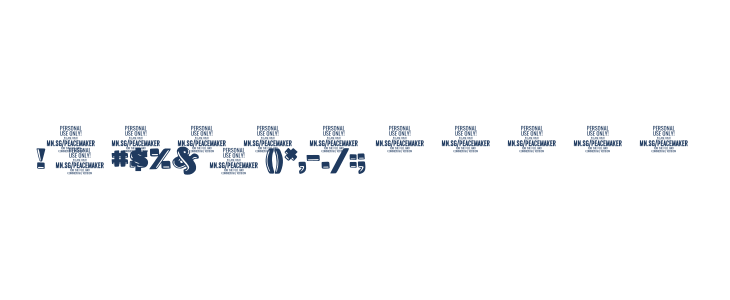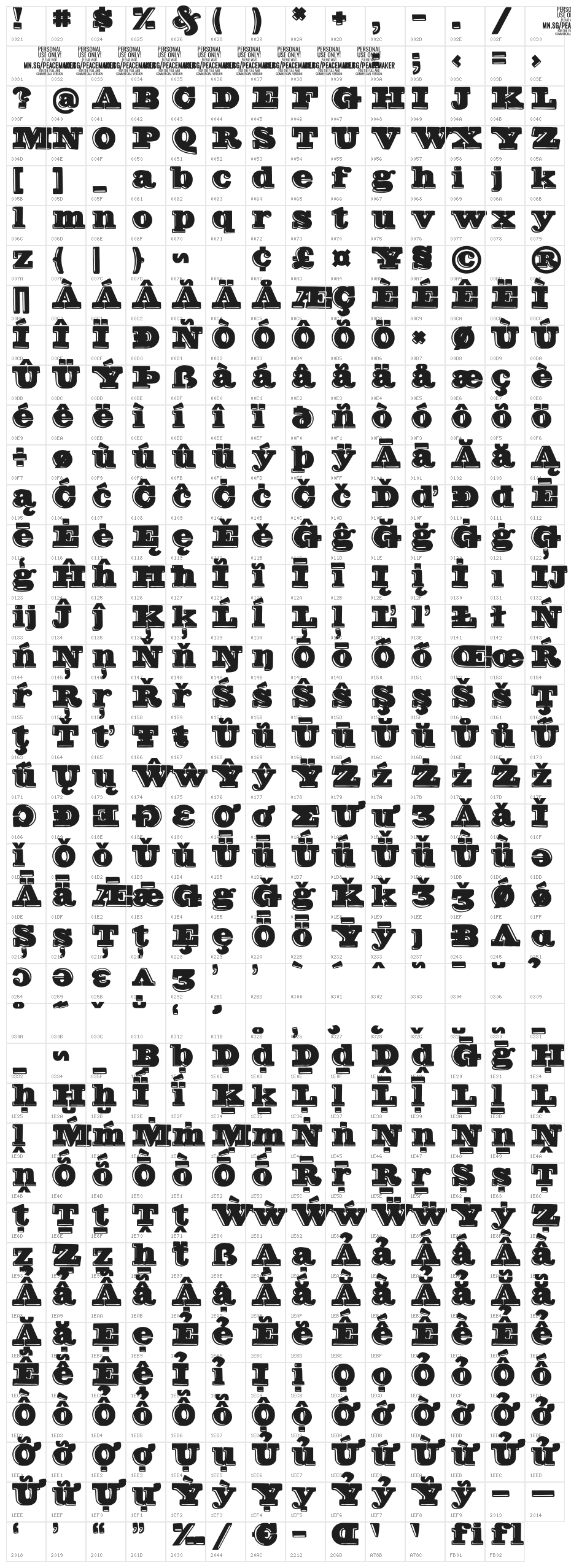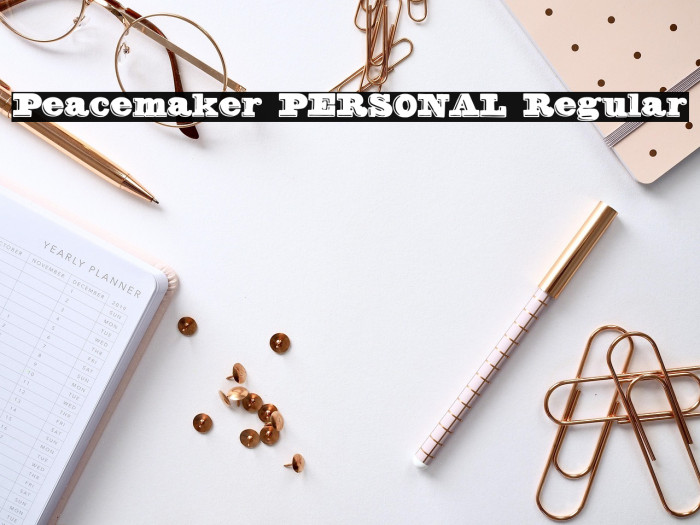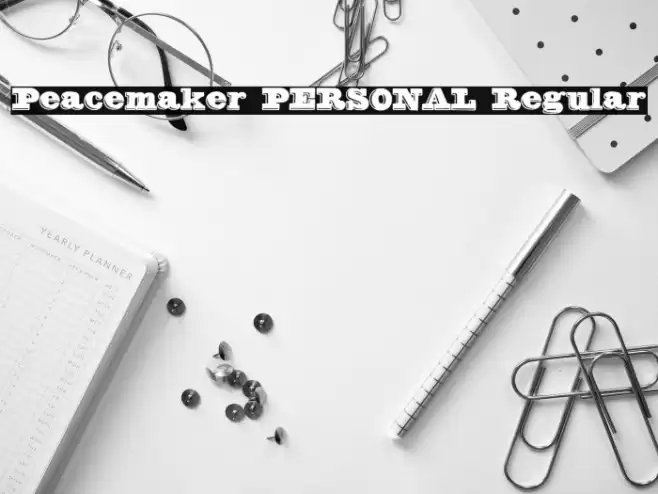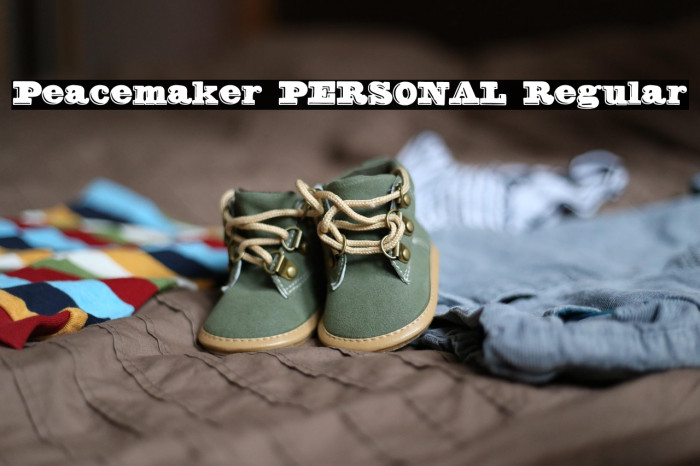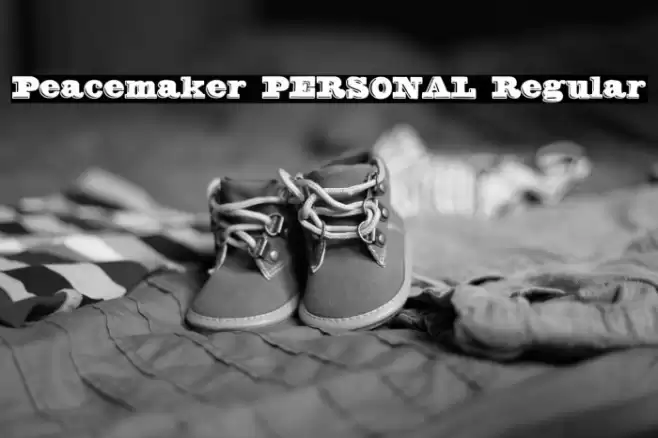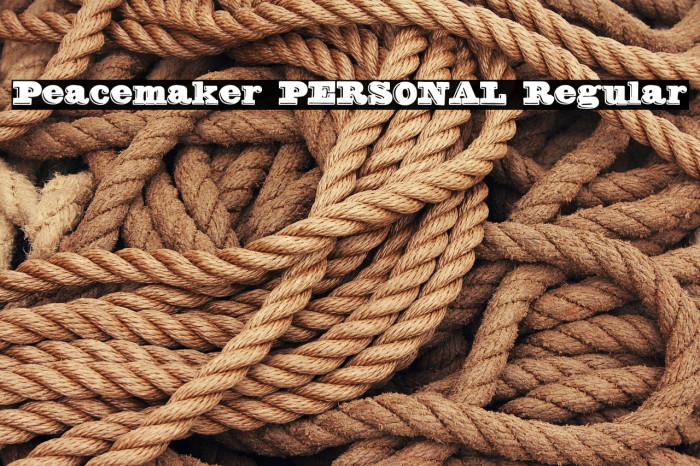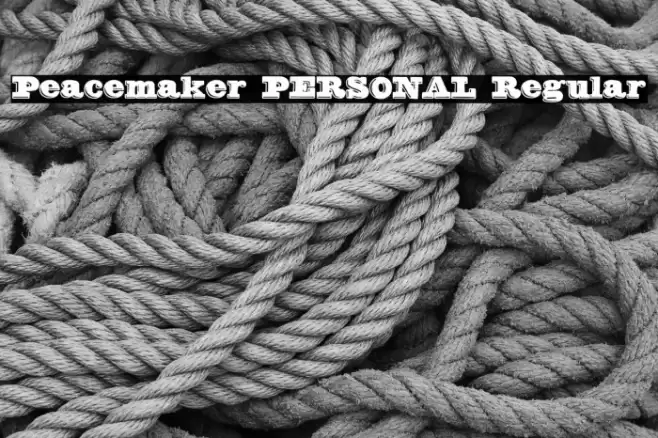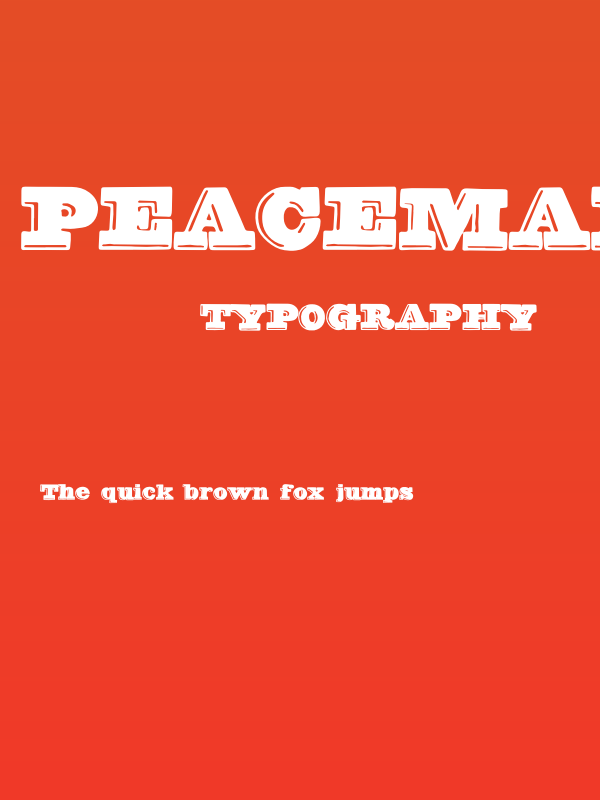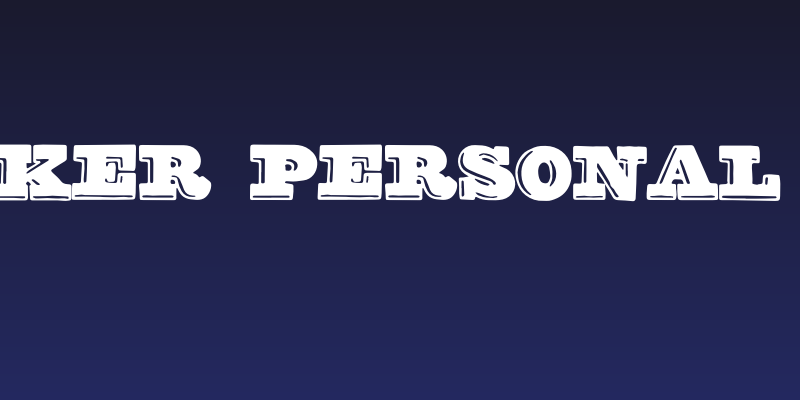
Peacemaker PERSONAL Regular Font
Peacemaker PERSONAL Regular Description
This font features a bold and impactful design with a strong presence. The characters are thick and robust, with a slight shadow effect that adds depth and dimension. The uppercase letters are particularly striking, with a solid and authoritative appearance. The lowercase letters maintain the same boldness, ensuring consistency across the typeface. The numbers and special characters are equally bold, making them stand out effectively. This font is perfect for making a statement and capturing attention.